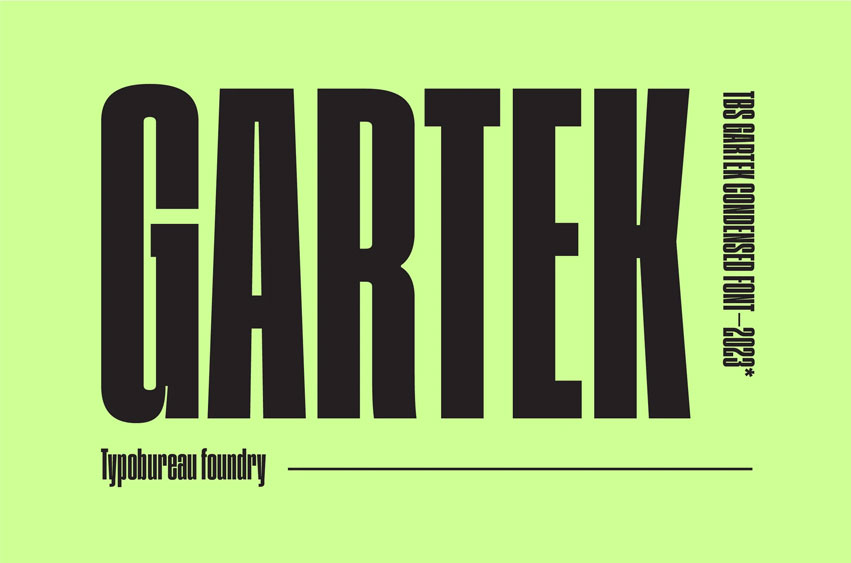
Gartek Condensed Font
Gartek Condensed Font is a Latin-based condensed typeface that features distinct characters compared to the previous TBS Gartek Heavy font. TBS Gartek Condensed has a strong yet sharp appearance with influences of post-modernism and a hint of 90s nostalgia. It supports over 60 accented languages, including those from Western, Southeast, and Central Europe, as well as Vietnamese.
TBS Gartek Condensed is perfect for anyone looking to enhance their design projects. The single DemiBold weight looks stunning in magazines, posters, social media content, and headlines. Elevate your project with TBS Gartek Condensed!